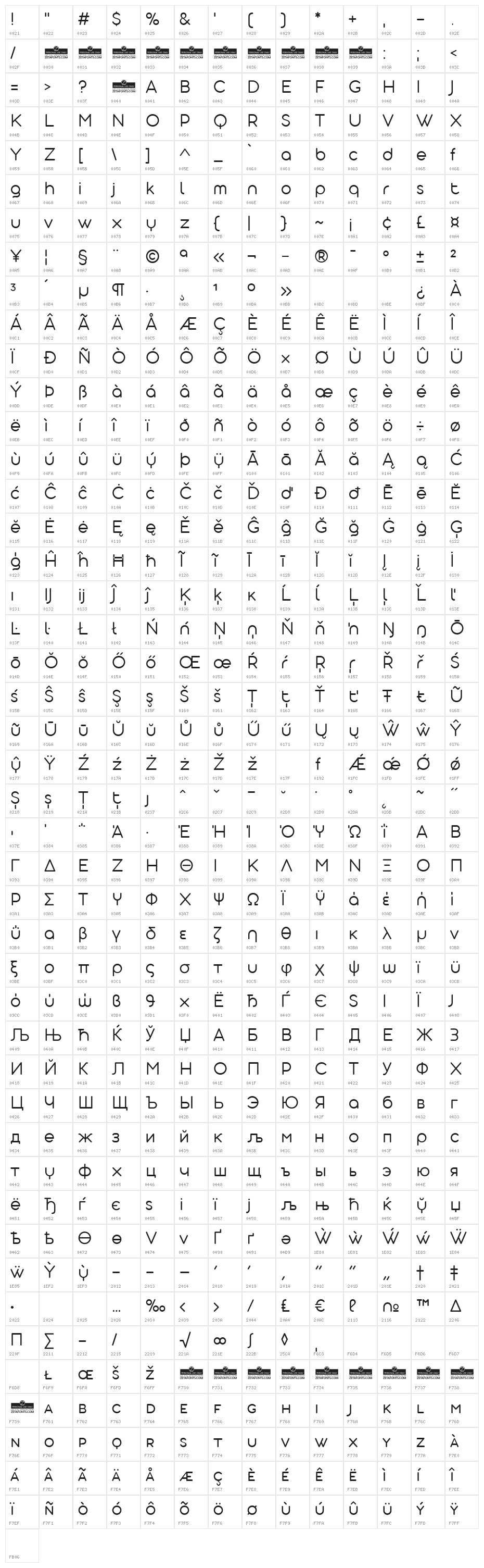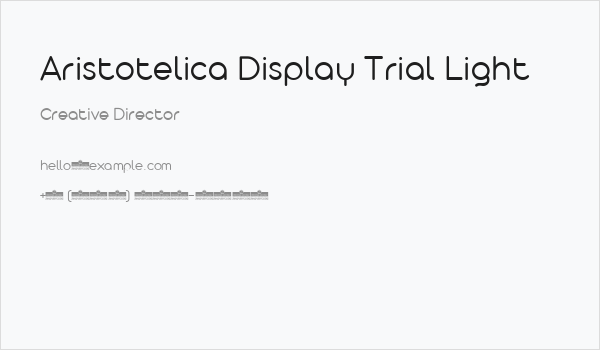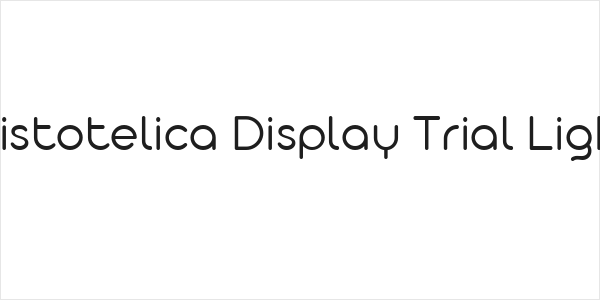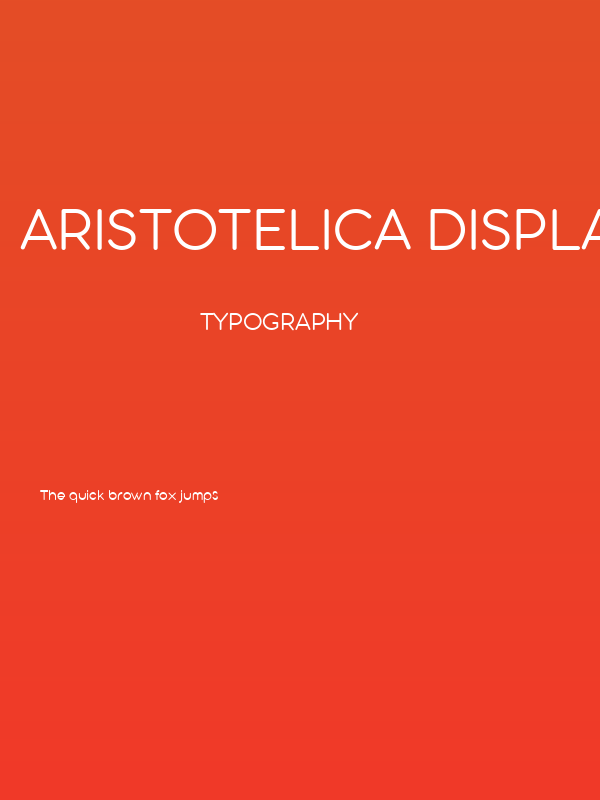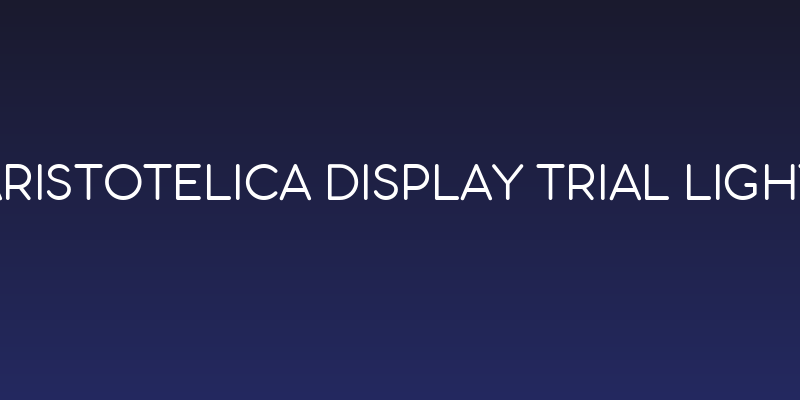
Aristotelica Display Trial Light Font
Aristotelica Display Trial Light Description
This font exhibits a clean and modern sans-serif style, characterized by its rounded edges and uniform stroke width. The letters are well-proportioned, offering a harmonious and balanced appearance. The uppercase and lowercase characters maintain a consistent design, enhancing readability. The numerals and special characters are crafted with the same attention to detail, ensuring a cohesive look across all text elements. Its simplicity and elegance make it suitable for a variety of design applications, from digital interfaces to print media.